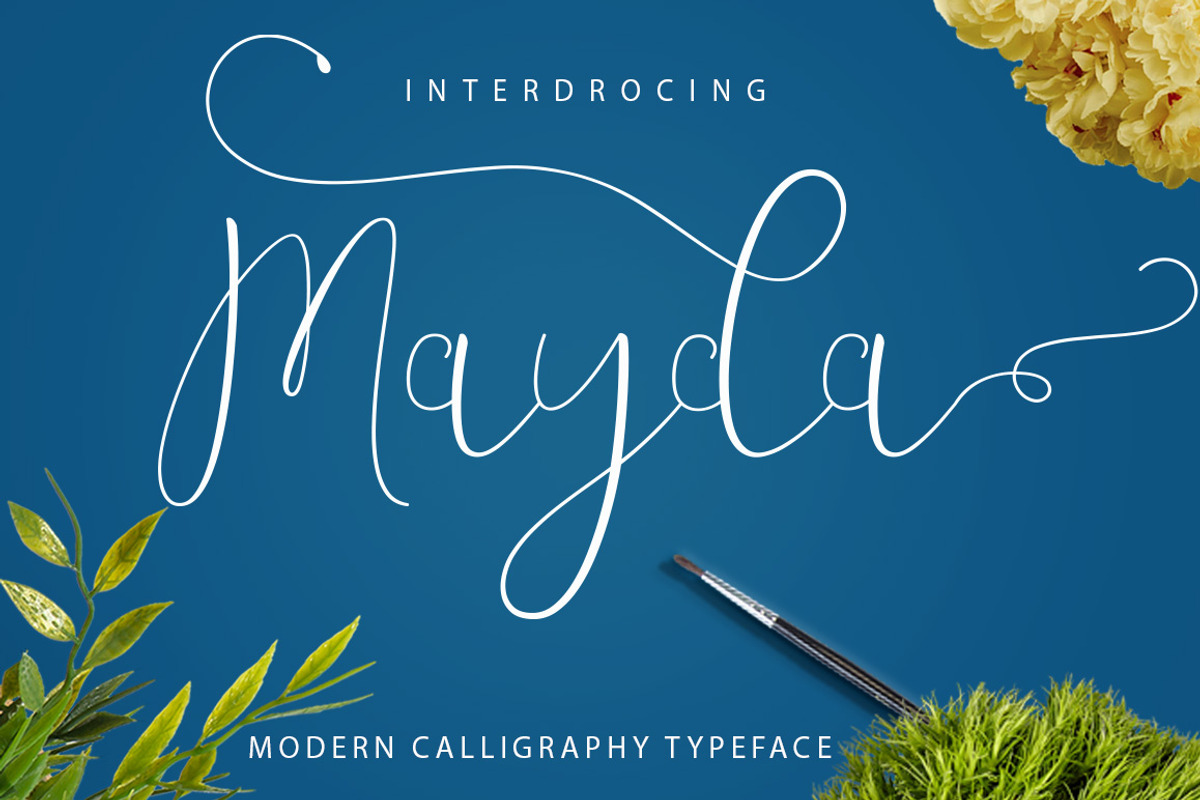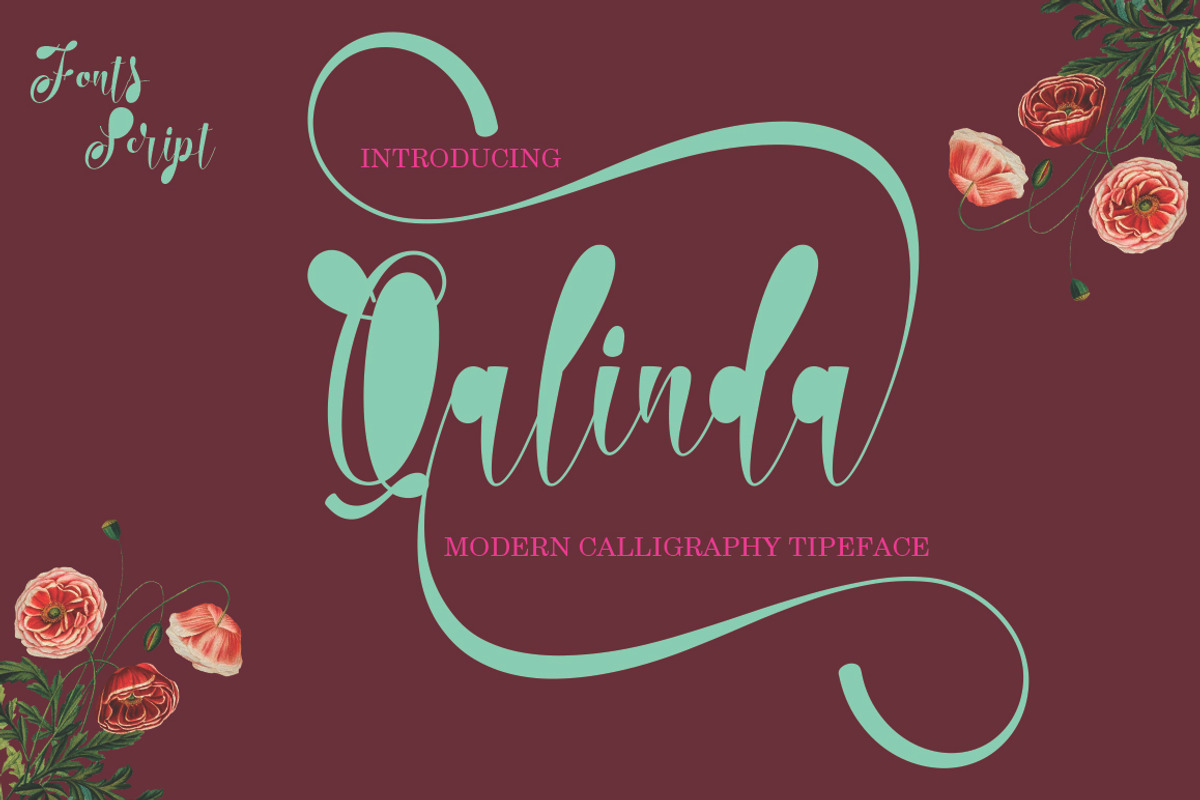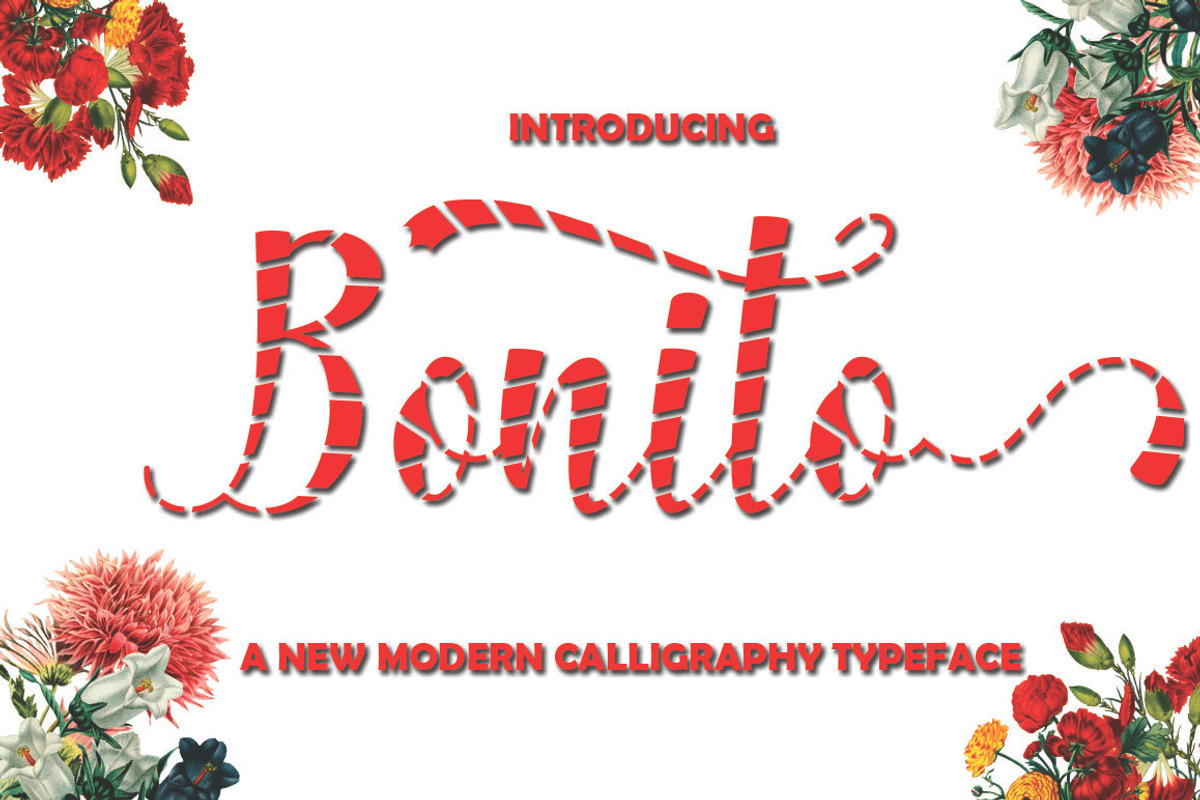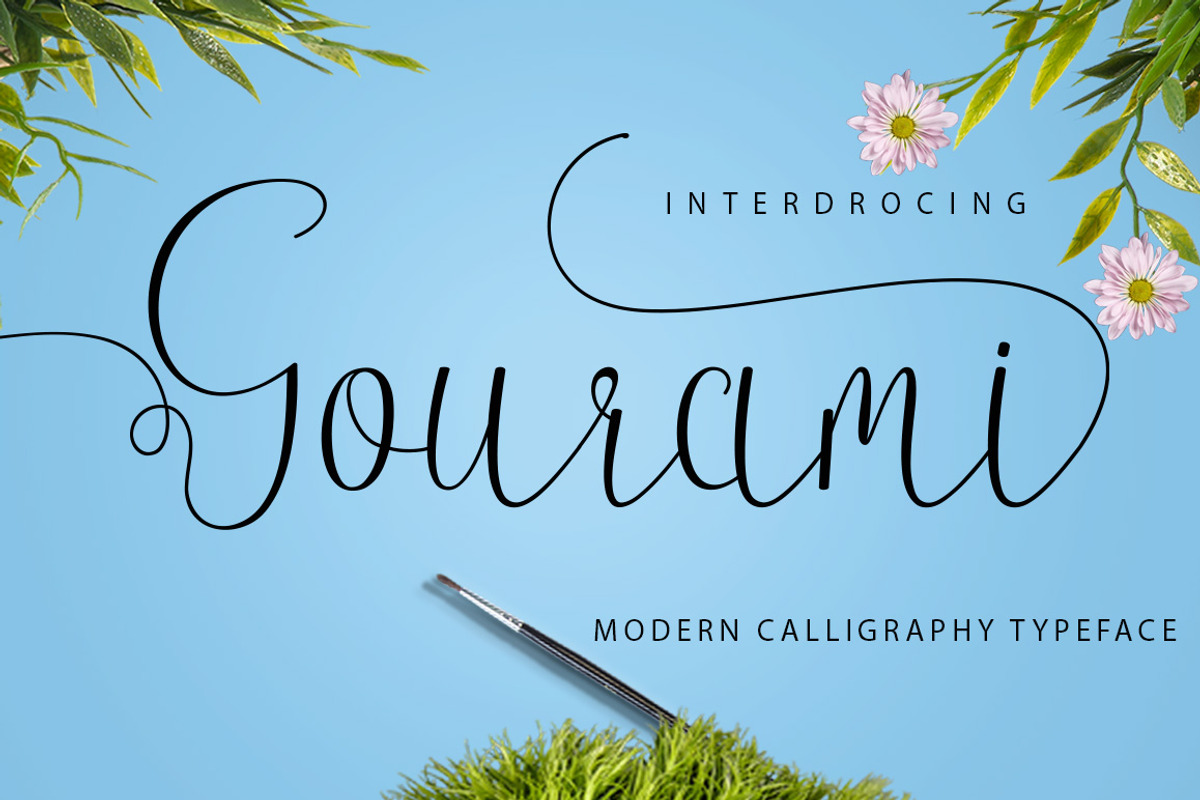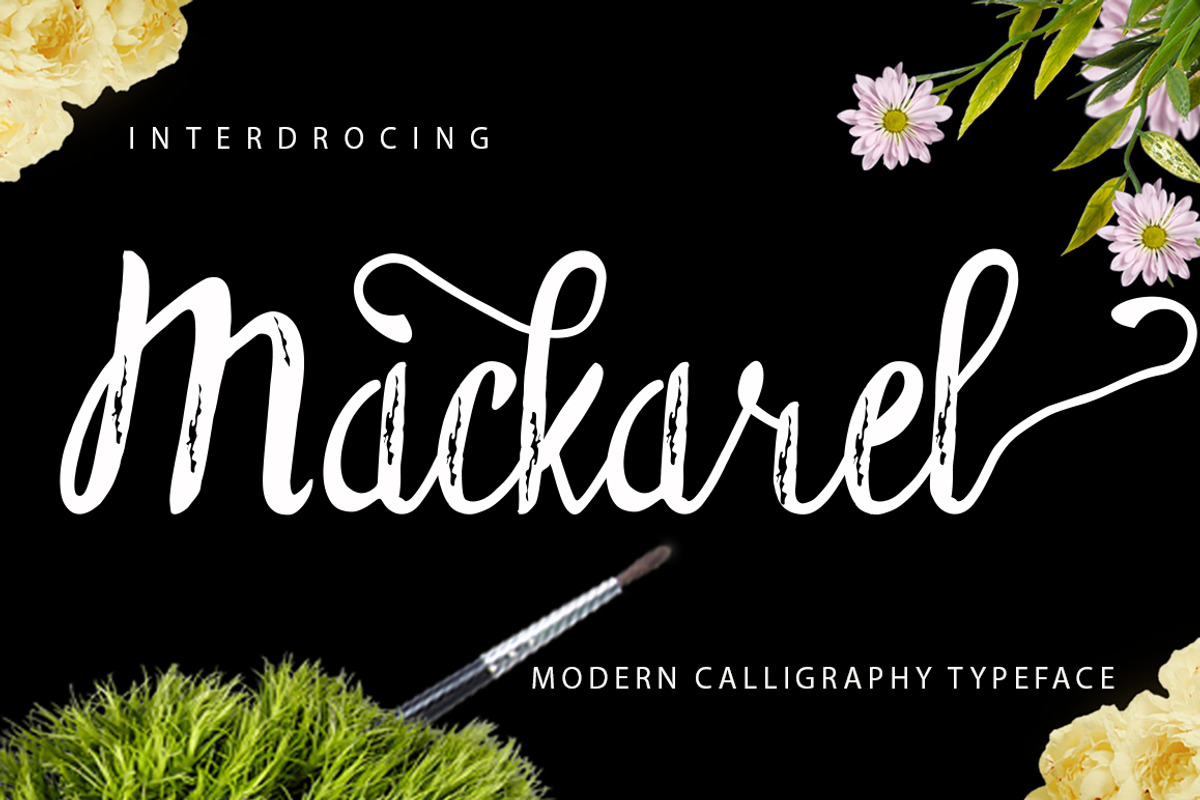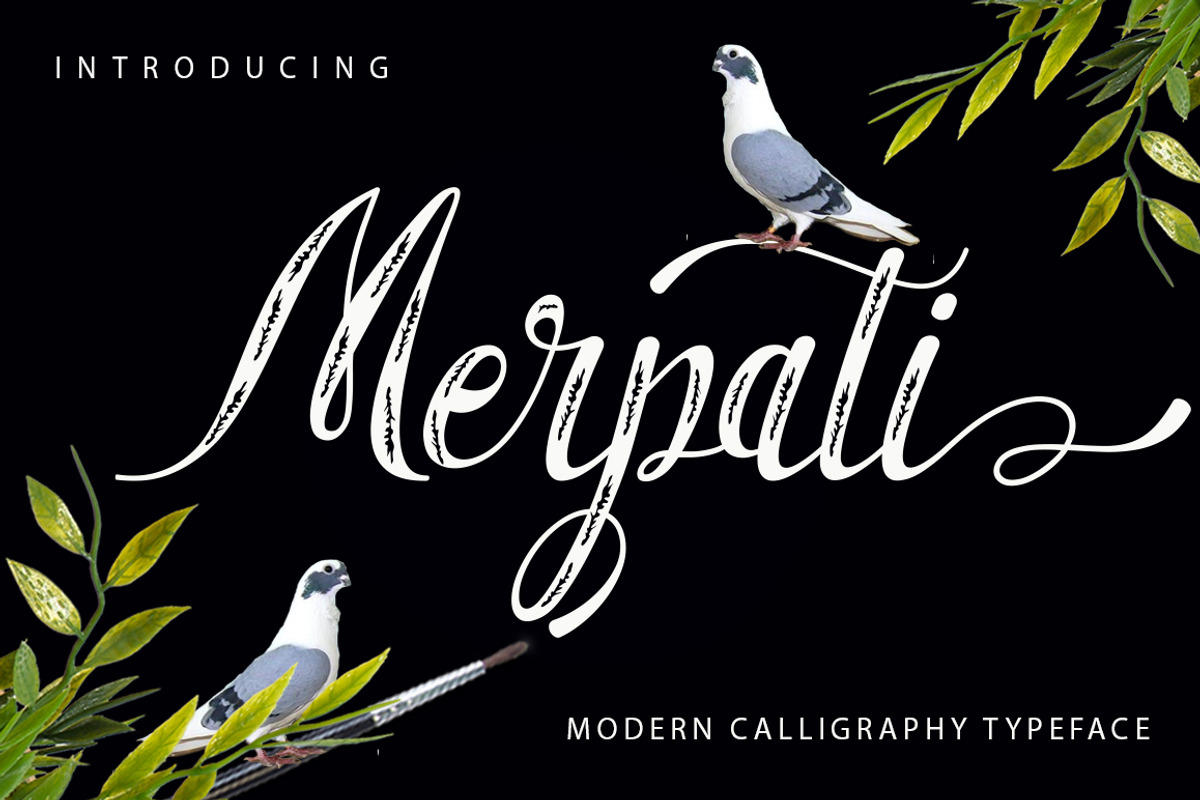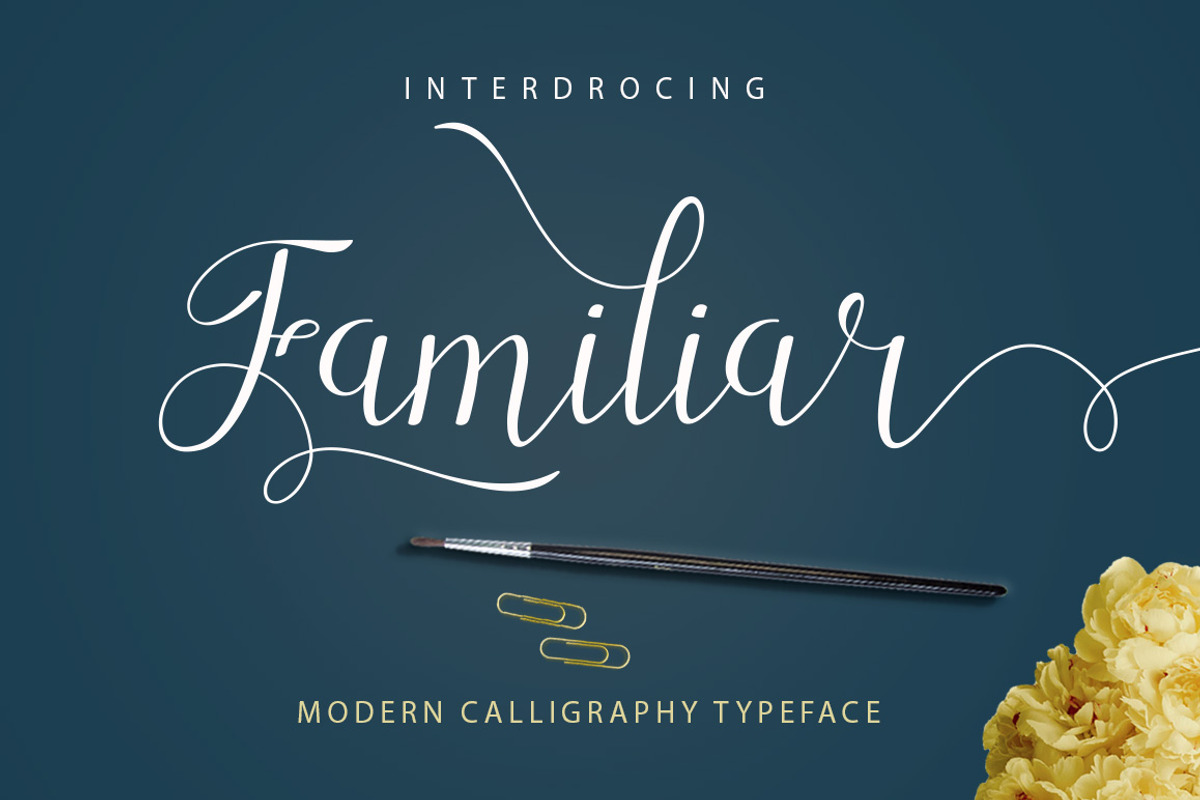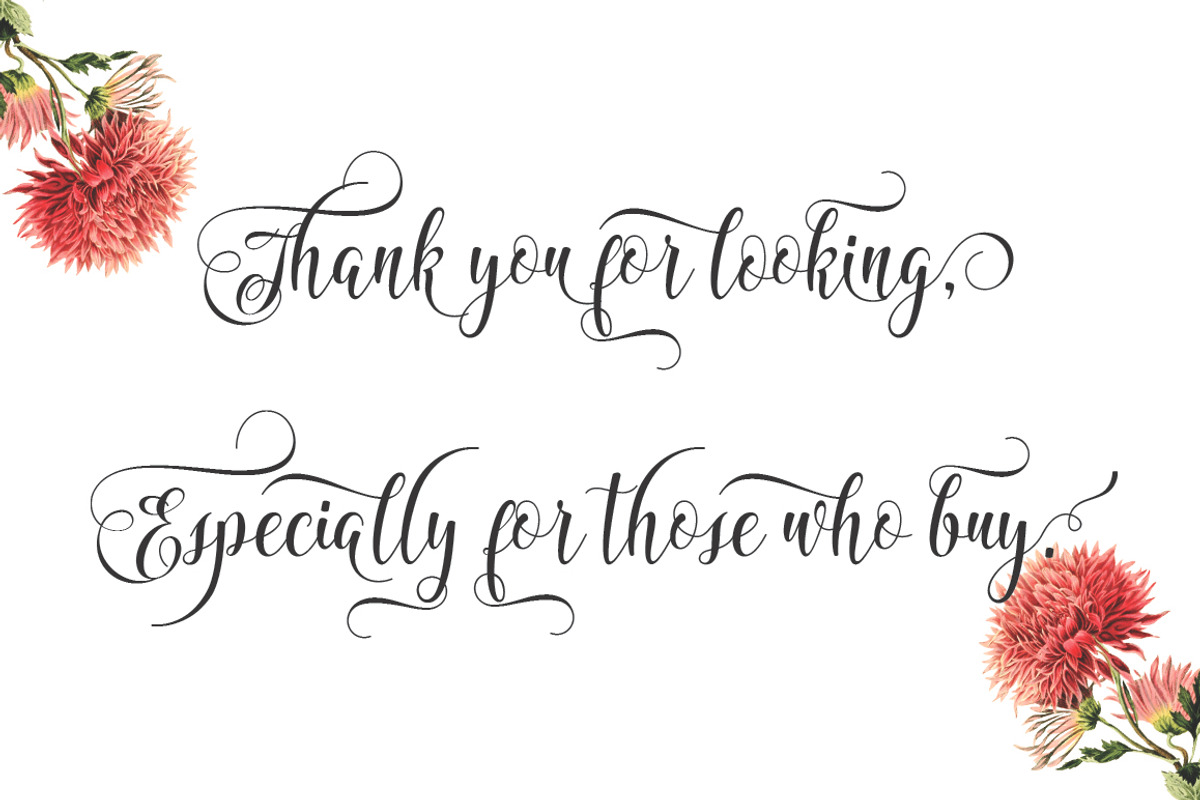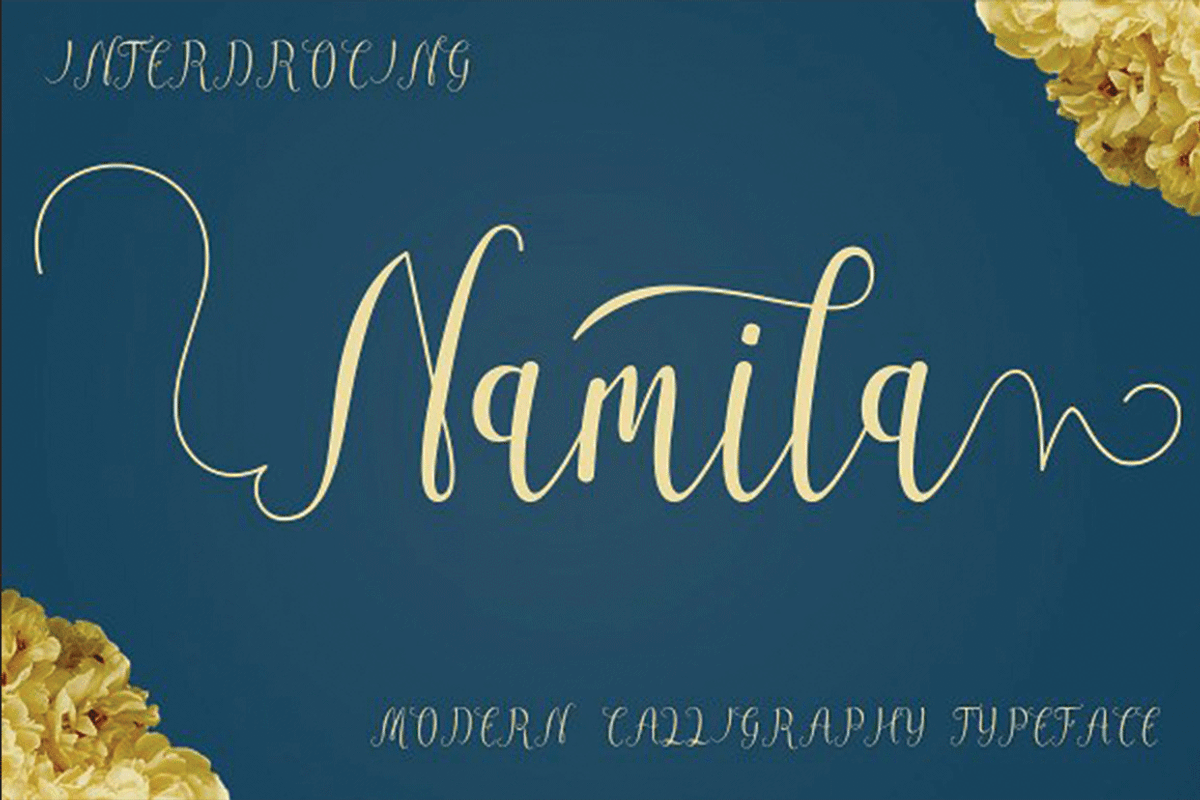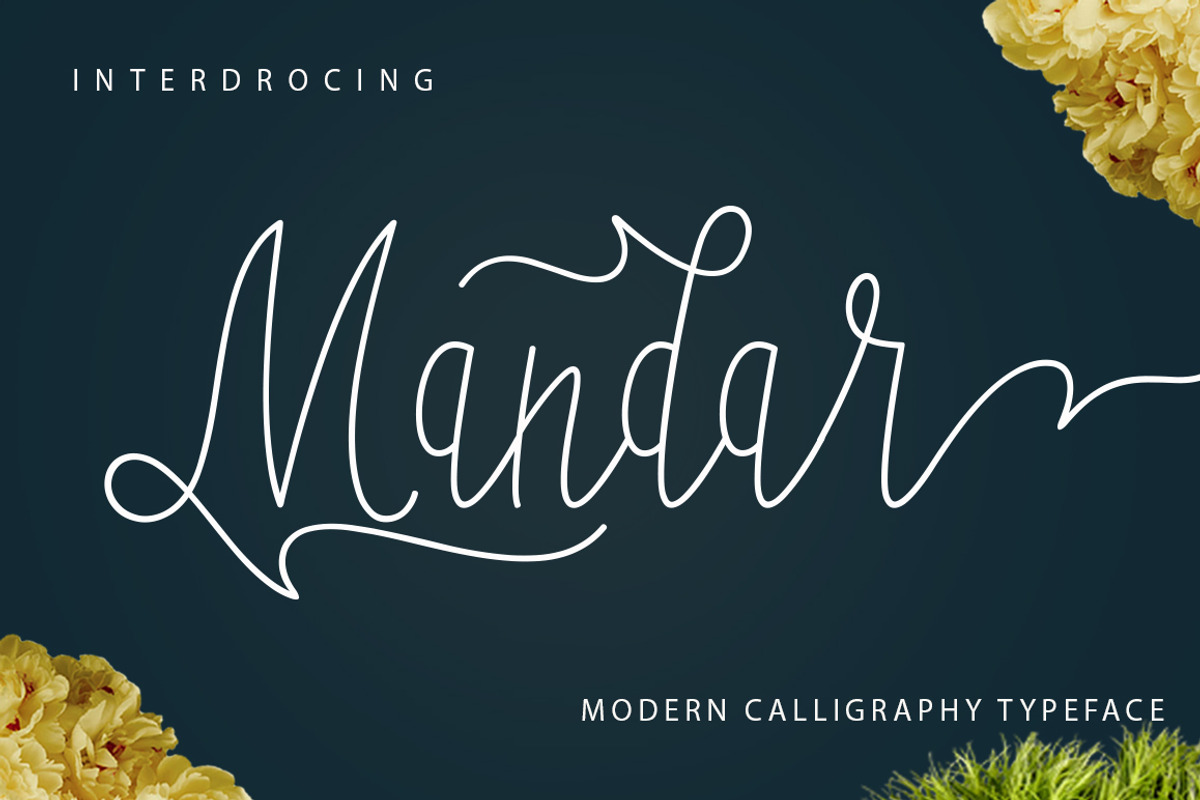
BIG BUNDLE FON SCRIPT
BIG BUNDLE FONT SCRIP
Best selling FONS here's your chance to get a large number of best-selling fonts.
This package contains 17 Font Scripts. Includes some best-selling fonts. Ambulane Script, Maitlyn Script, Namila Script, Ranthani Script, Mackarel Script, Mayda Dll Script, with hundreds of glyphs, including alternates, ligatures, swashes, contextual alternatives and international language support. It can be accessed by using OpenType smart programs like Adobe Illustrator, Adobe InDesign, CorelDraw X6-X7, Microsoft Word.
All fonts is perfect for branding, headings, signatures, logos, blog, wedding invitations, t-shirts, letterhead, merchandise, signage, lable, news, posters, badges etc.